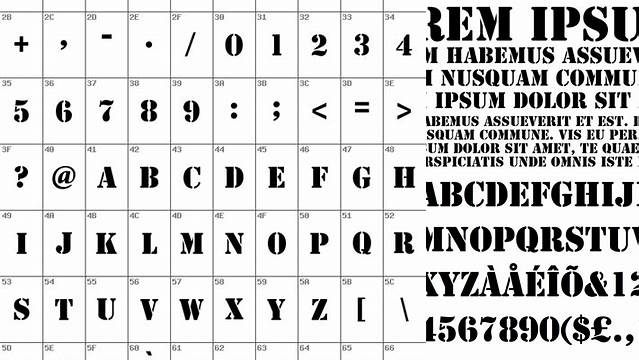
Are you on the hunt for the perfect font to give your project a bold, edgy look? Look no further than the Stencil Std Bold font! This iconic typeface has been a favorite for a long time, and for good reason. Its distinctive, stencil-cut design makes it instantly recognizable and adds a touch of modern flair to any design. In this comprehensive guide, we'll dive deep into everything you need to know about the Stencil Std Bold font, including where to find a free download, how to use it, and some creative ideas to get you inspired. So, let's get started!
What Makes Stencil Std Bold So Special?
The Stencil Std Bold font isn't just another typeface; it's a statement. The design, characterized by its bridges and cutouts, gives it a unique, industrial, and almost military aesthetic. This font is a variation of the original stencil font, and the boldness of the weight ensures it grabs attention. It's perfect for headlines, posters, logos, and any design where you want to make a strong visual impact. Its simplicity is key, as it can be read even in a crowded layout. Stencil fonts have a rich history, originally used for marking crates, and are now used across various design disciplines. The stencil font, in bold, is a great choice for those looking to add a touch of military or urban style to their projects. Stencil Std Bold is renowned for its readability. This typeface is suitable for various applications, from digital designs to print materials. Its unique design makes it stand out. The stencil style is eye-catching, ensuring your message gets noticed. Stencil Std Bold is popular in branding, advertising, and more. The font's distinctive style is versatile, allowing it to fit into both modern and vintage designs. Its bold weight ensures it maintains visibility. The readability of Stencil Std Bold is another strong point, as the design ensures clarity. This makes it great for both large displays and small texts. The font's boldness makes it easily recognizable. Its distinctive style is also easy to apply to various designs. Stencil Std Bold is a solid choice for any project needing a unique and eye-catching font.
When using Stencil Std Bold, consider the overall message of your design. This font conveys a sense of strength, authority, and modernity. It is often used to communicate ideas related to construction, military themes, or bold statements. Think about the contrast between the font and the background, and how it complements other design elements. The bold weight ensures the font stands out, but the background is also important. Stencil Std Bold works best in contexts where you want to make a strong visual impression. The font is useful for posters, headlines, and titles. It should be a key part of your design and the message. Choosing the right size and placement is crucial for readability. Experiment with colors and styles to see what fits your project. Using Stencil Std Bold effectively depends on understanding its characteristics. The font's industrial appeal makes it a favorite among designers. You can use it to add a touch of boldness and visual interest. Always maintain the integrity of the design. The font's ability to combine with different styles is also worth noting. Stencil Std Bold offers design possibilities. Considering these factors, you can create a design that resonates with your audience. You can make the most of this versatile typeface. Stencil Std Bold can be used in various creative projects.